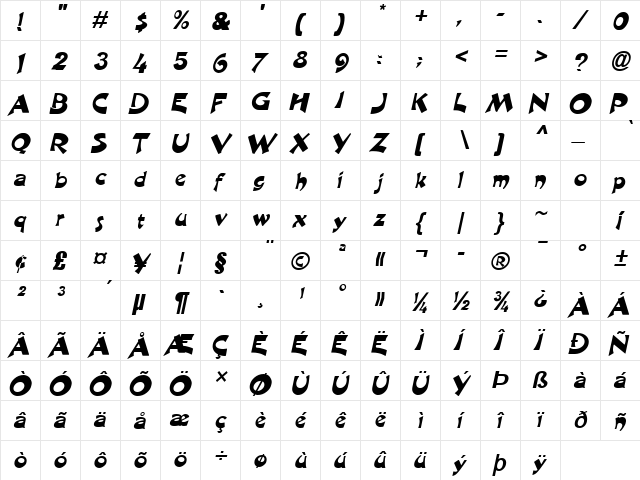
Crane Italic
Design Context for Crane Typeface
Crane is a composed and adaptable typeface that performs quietly and consistently across a wide range of design contexts. The slanted form adds forward momentum and visual energy.
Pro Tip: Use Crane for emphasis, pull quotes, and subheadings where its slanted energy can add rhythm to the layout.